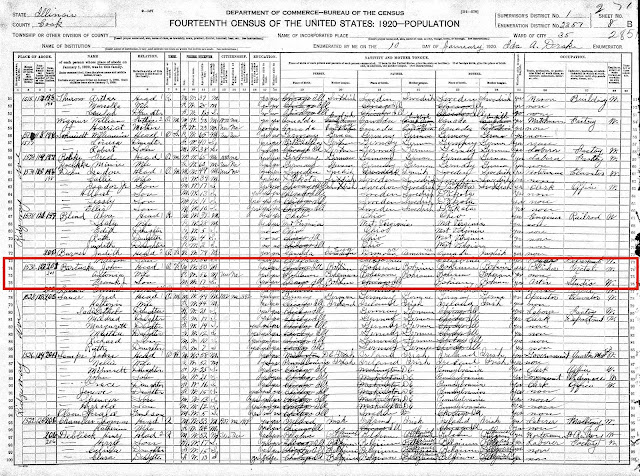
Frank John Bartuska was born on April 4, 1902, in Chicago, Illinois, according to his World War II draft card. In the 1910 United States Census, Bartuska was the only child of John, a metal polisher, and Antonia, who was born in Bohemia. The family resided in Chicago at 1532 North Ridgeway Avenue.
The Bartuskas were counted at the same address in the 1920 census. Seventeen-year-old Bartuska was an artist at a studio.
Around 1927 Bartuska married Thelma. The 1930 census said they lived in Chicago at 1744 Albion Avenue. Bartuska was an artist at a commercial art studio. Some time after 1935, they moved to New York City.
The 1940 census said they were Manhattan residents at 57 West 55th Street. Bartuska was a commercial artist who highest level of education was the fourth year of high school. He earned $4,730 in 1939.
On February 15, 1942, Bartuska signed his World War II draft card. His home address was unchanged. Bartuska was self-employed and had an office at 143 East 45th Street. His descriptions five feet ten inches, 150 pounds, with blonde hair and blue eyes.
Advertising Layout: The Projection of an Idea (1946) dust jacket and cover designed by Toni Bonagura and Frank Bartuska. Heck-Cattell Publishing Company, 1946
Lettering and Calligraphy in Current Advertising and Publishing exhibition, at the A-D Gallery in New York City., presented the work of 25 letterers and calligraphers including Bartuska (below). The catalog was reprinted in Print, Fall 1945.
Bartuska has not yet been found in the 1950 census.
Art Direction, October 1953, printed an Photo-Lettering advertisement announcing the transfer of photographic alphabets by Bartuska and Tony Bonagura. Art Direction, November 1953, reported the transfer of photographic alphabets.
Photo-Lettering adds alphabetsEd Rondthaler has been abroad securing European alphabets for Photo-Lettering Inc. and one-man calligraphic and lettering shows for the Alphabet Gallery.Toni Bonagura and Frank Bartuska have transferred their entire “Custom Lettering” line of nearly 100 photographic alphabets to the Company’s library. This line includes many versions of both contemporary and classic designs. A brochure displaying these designs is available from Photo-Lettering, Inc., 216 East 45th Street, New York City.
Art Direction, October 1955, said
Photo-Lettering catalog shows 2750 stylesToday’s nearest approach to an encyclopedia of lettering is found in “A Manual of 2750 Alphabet Styles” (Photo-Lettering, Inc., 216 East 45th St., New York. $5). The book displays the work of over a hundred letterers, calligraphers and type designers, including such artists as Pete Dom, Tommy Thompson, Tony Bonnagura [sic], M. M. Davison, C. E. Coryn, Andrew Szoeke, Frank Bartuska, Oscar Ogg, Emil Schaedler, Tony Stan, Edw. Benguiat, Acey Cypres, etc.
Art Direction, May 1957, said
Poster technique for fashion adA departure from for the usual high fashion elegance in this color page for Glenhaven Suits. AD Norbert Haber designed the page with headlines in black and red—the large “you” backgrounding model Dovima is in red. Frank Bartuska and Milton Crown did the lettering for large type. Photographer: Bill Ward. Copy: Andrew Weiss. Agency: Webb Associates. This page is one of five in new campaign, all ads to use same design, only differing feature to be suited model.
Industrial Marketing, January 1959, said
Plastics World . . has changed to a square (11 1/4 x 11 1/4") format. In addition to a new cover, designed by Frank Bartuska, changes have been made in page layout, typography, use of color, and illustrations. These changes have been made under the guidance of the Syracuse University Communications Research Center. The magazine is a property of Cleworth Publishing Co., Cos Cob, Conn.
The Catalog of Copyright Entries, Third Series, Volume 12, Part 1, Number 2, Books and Pamphlets, July–December 1958 had several entries for Bartuska’s lettering and design on children’s books by Merrill Company Publishers.
The Encyclopaedia of Type Faces, Blandford Press, 1983, said
Page 38: Caslon Antique ... There are also much later-dated adaptations such as Caslon Old Face Heavy, and Old Face Open and an Old Face Open Heavy. The Caslon italic of American Typefounders has additional swash letters. Other series for this typefoundry were redesigned by Frank Bartuska.Page 311: News Gothic… New additional weights were added 1958–66, including designs by Frank Bartuska for American Typefounders.
Bartuska passed away on February 2, 1975, in Pinellas County, Florida.